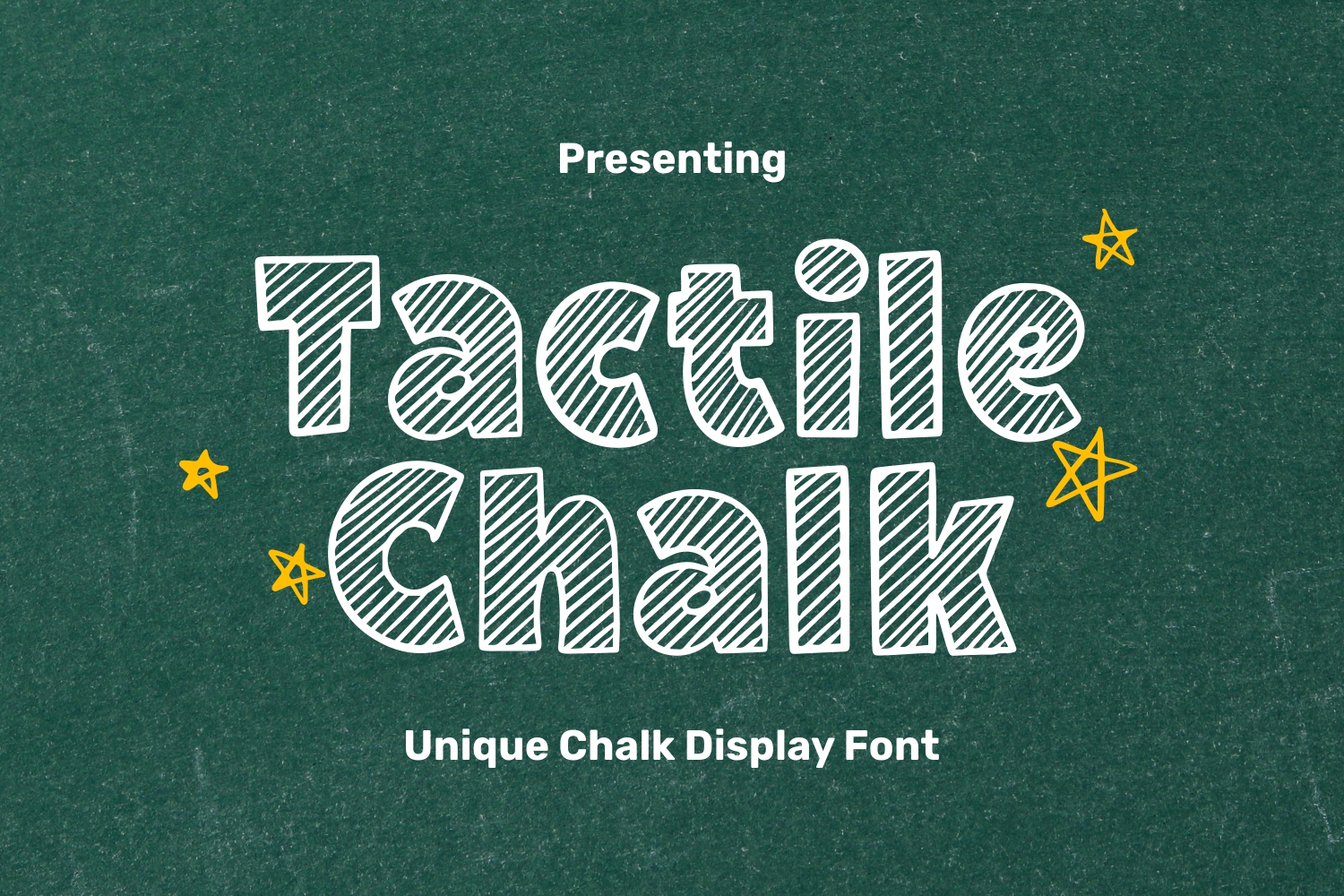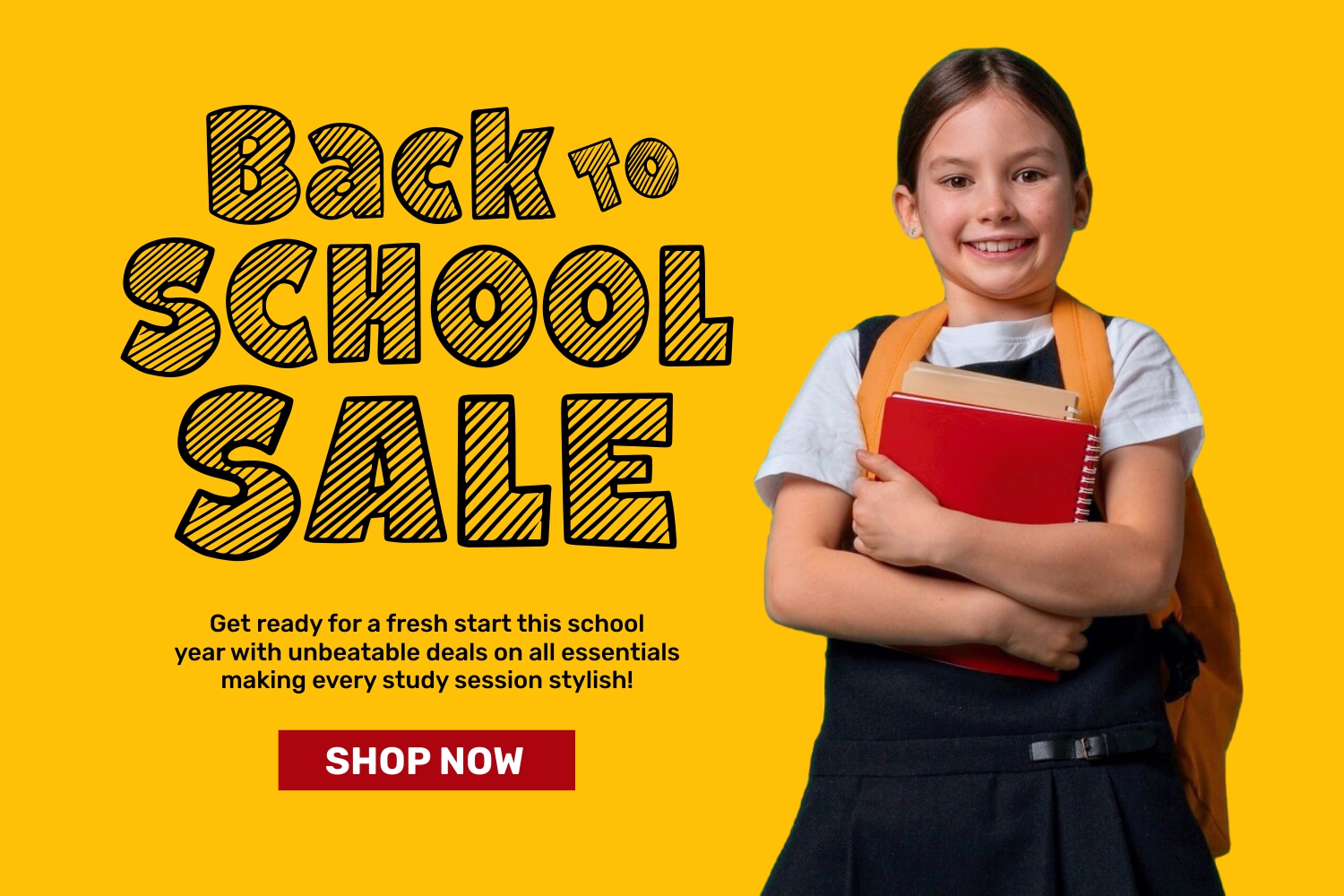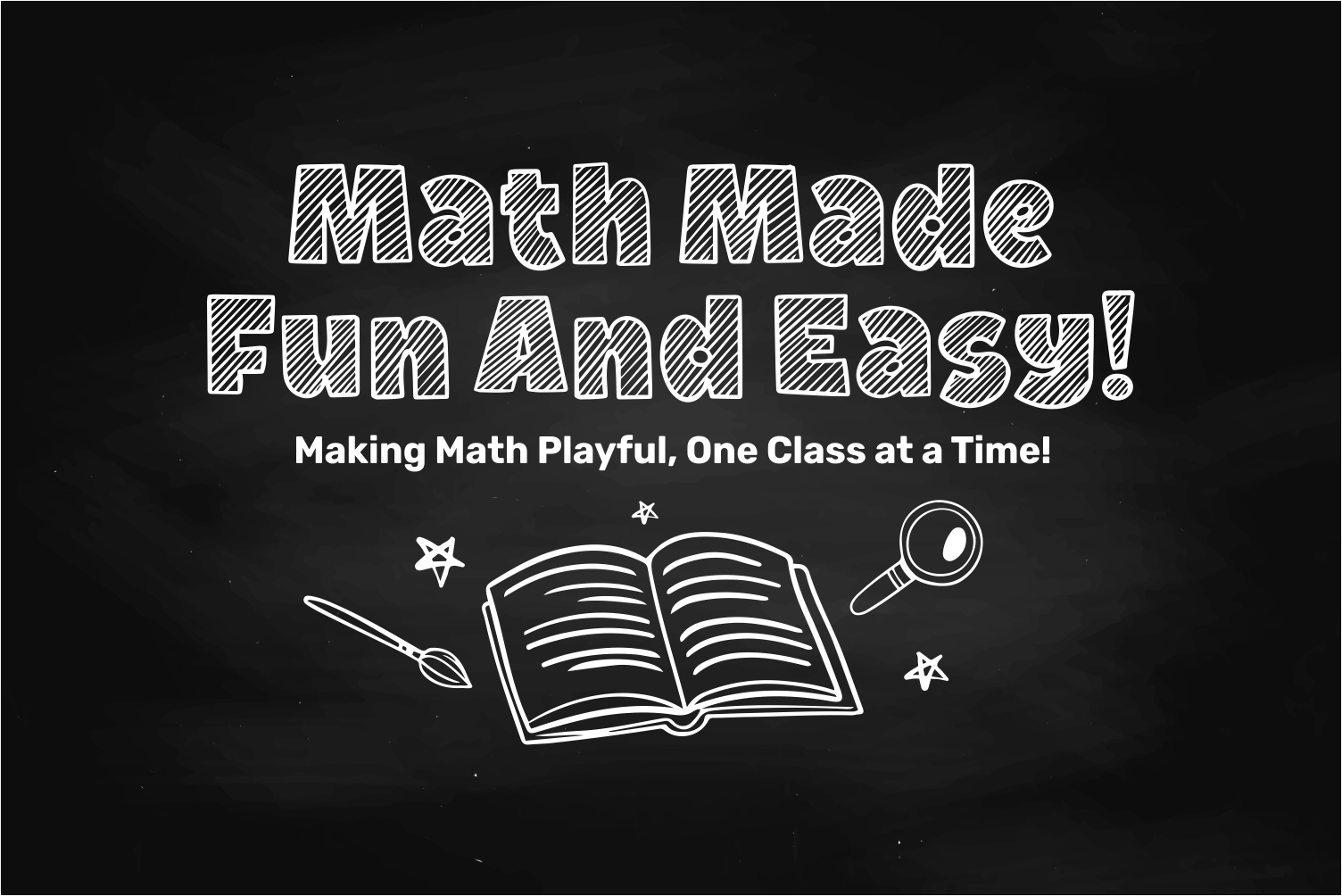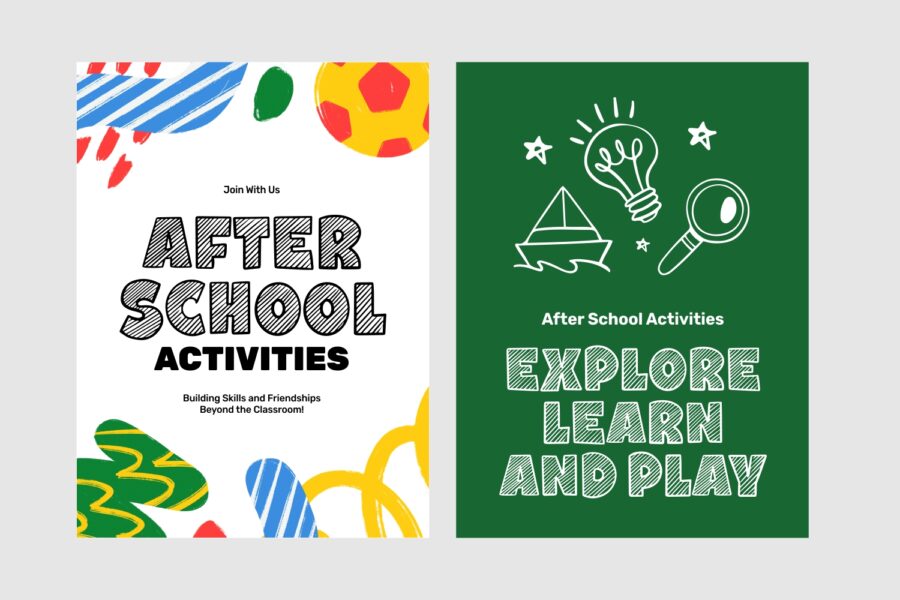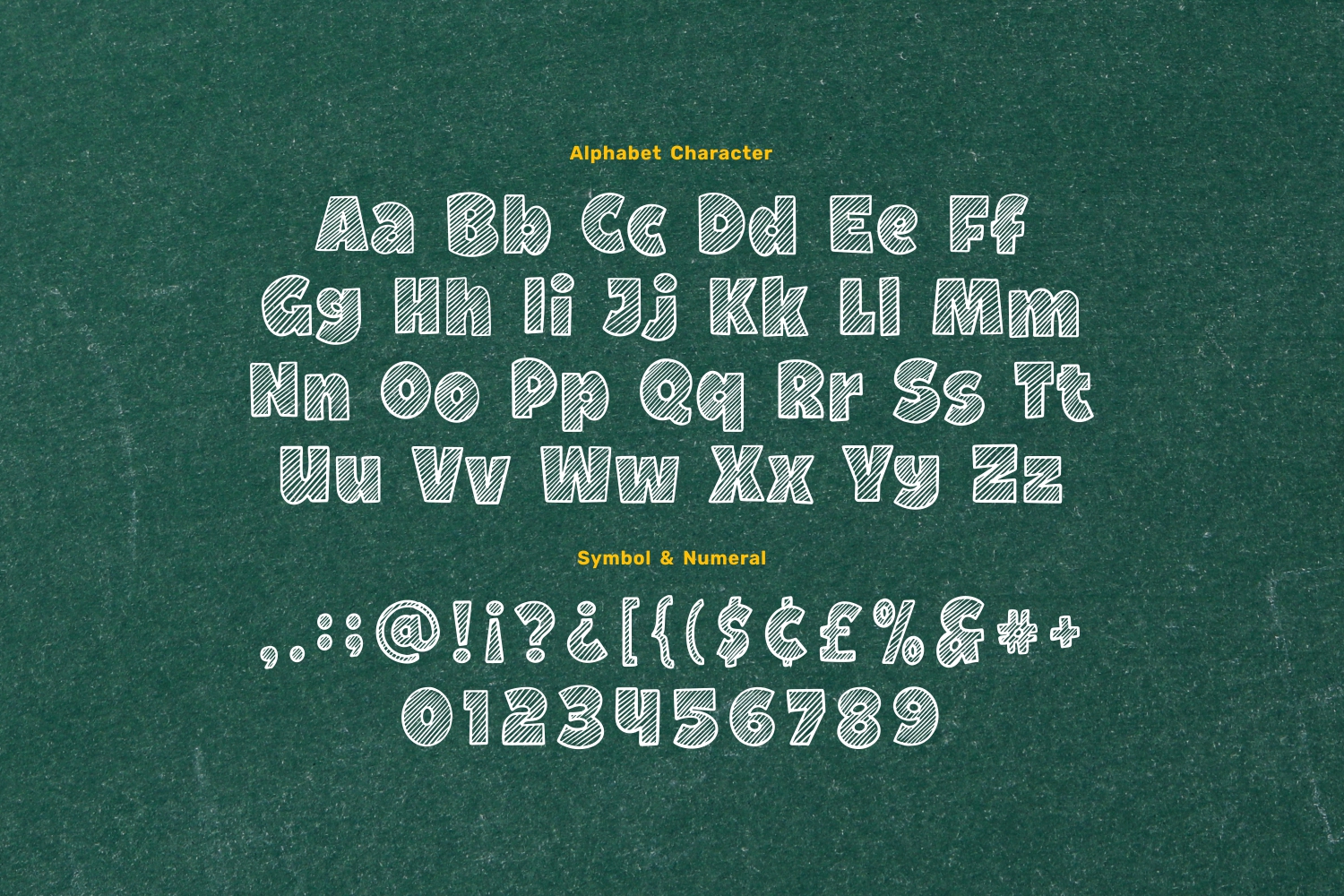
Tactile Chalk is a playful and unique display font that mimics the texture of hand-drawn chalk lines on a blackboard. Its bold and sketchy striped strokes instantly evoke the warmth of the classroom, making it an excellent choice for educational posters, school-themed promotions, kids’ projects, and creative branding.
With its friendly and informal vibe, Tactile Chalk is ideal for designs that want to be both fun and informative. The font includes uppercase, lowercase, numerals, punctuation, and symbols, giving you all the tools you need to create eye-catching headlines, back-to-school campaigns, and interactive learning materials.